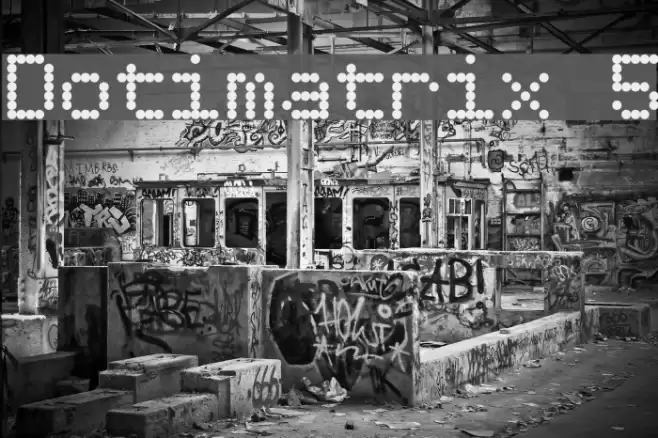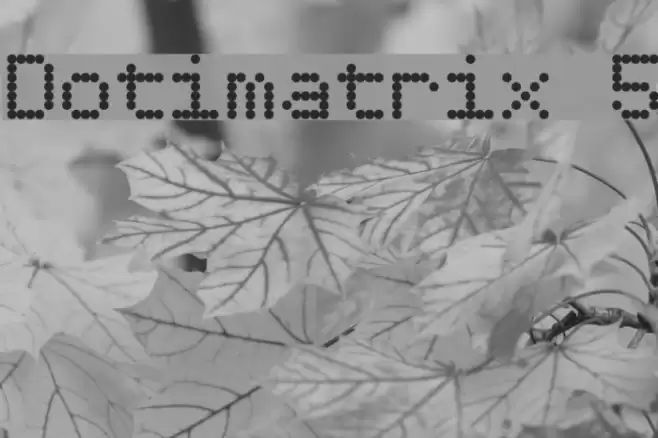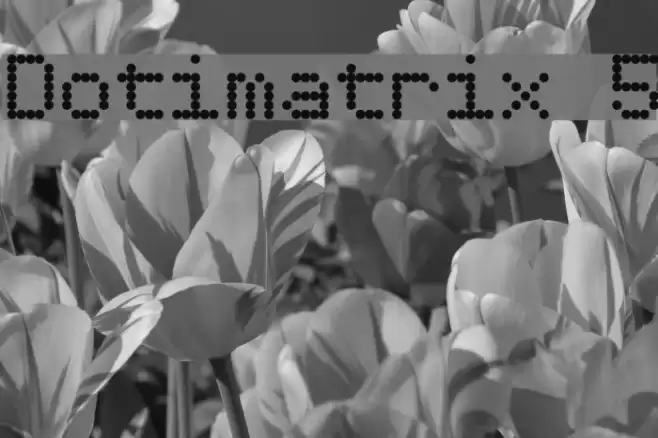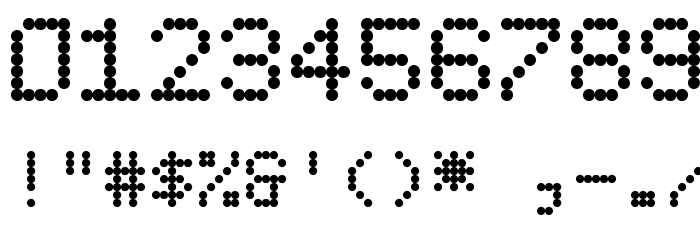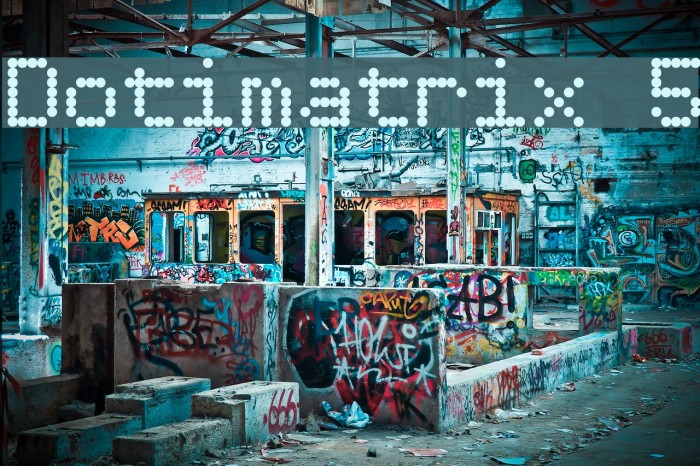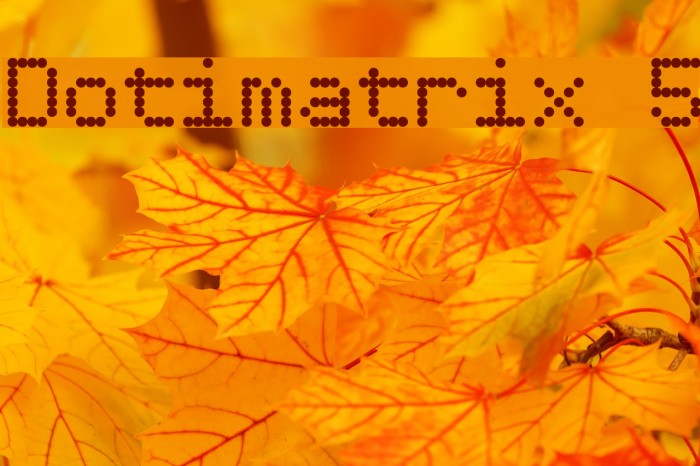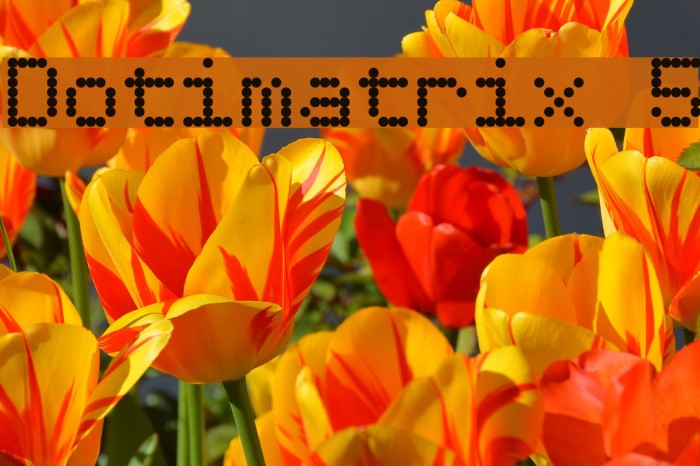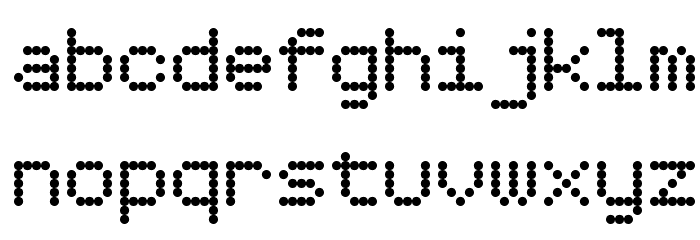
Dotimatrix 5 Font
Dotimatrix 5 Description
This font is a unique and creative design composed entirely of dots arranged in a grid-like pattern to form each character. The characters are evenly spaced, giving it a structured and uniform appearance. The font has a playful yet modern feel, making it suitable for projects that require a distinctive and eye-catching look. The dot matrix style evokes a sense of digital or retro technology, reminiscent of early computer displays or LED signage. Its geometric nature ensures clarity and readability, even at smaller sizes.
A dot matrix style font with a modern, playful appearance from Uncategorized fonts.
- Proposed Projects: Ideal for digital displays, retro-themed designs, tech-related branding, and creative posters.
- Use Case: Headlines, Logos, Digital displays